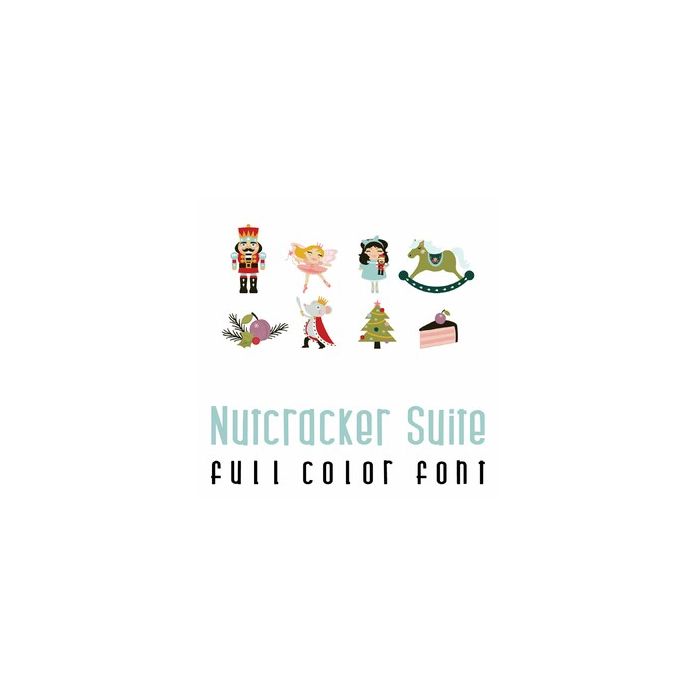
This fun full color doodlebat font features 26 images from the Nutcracker Ballet. Perfect for cards, crafts, gifts, decor, scrap book pages, planner stickers and more!